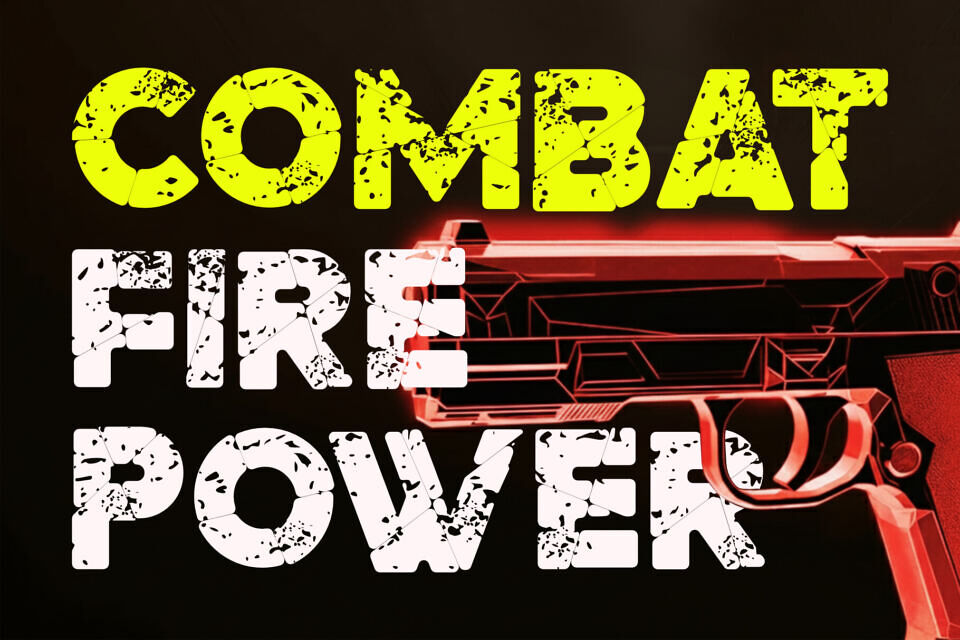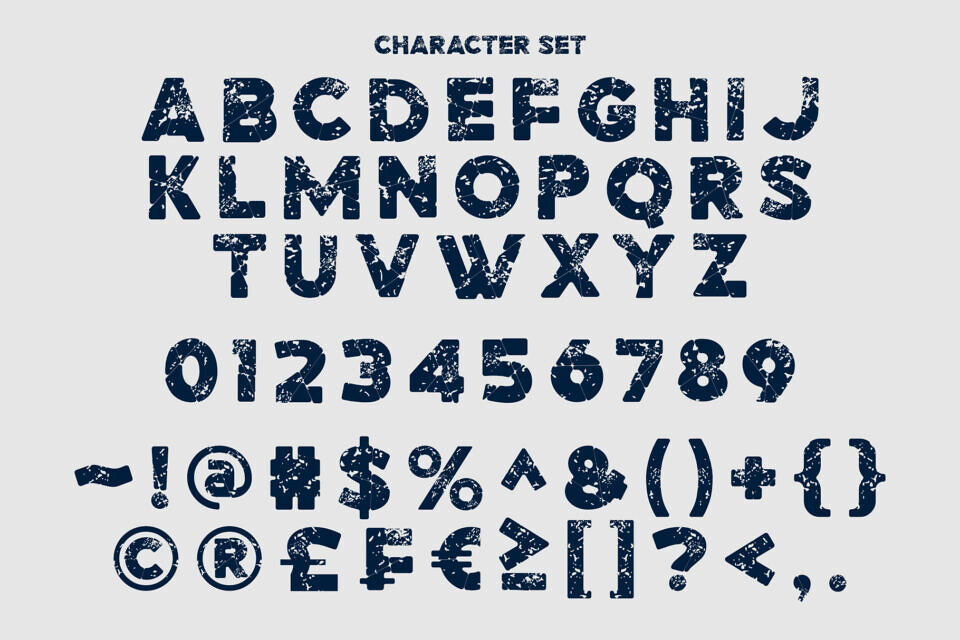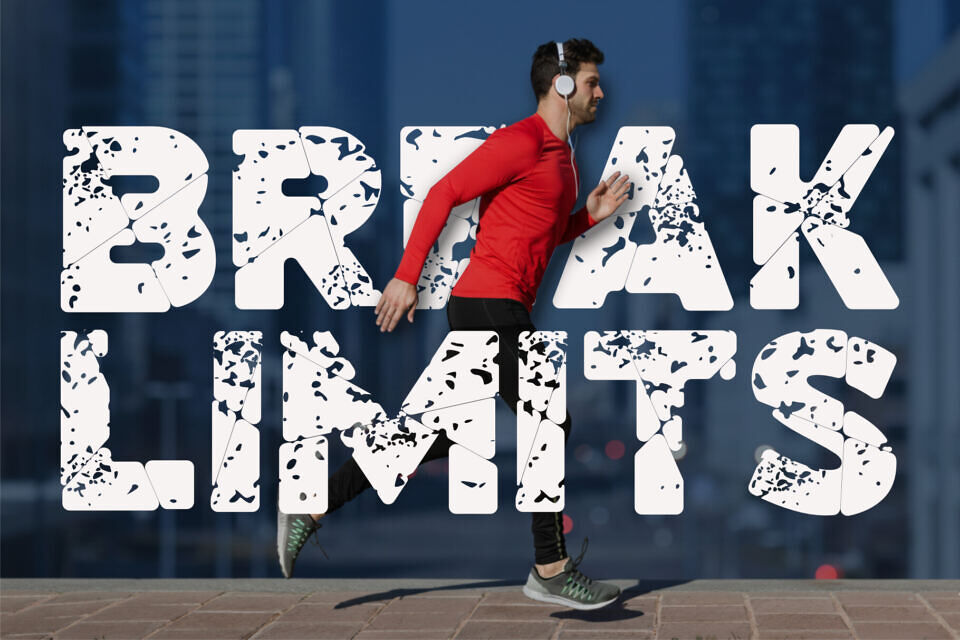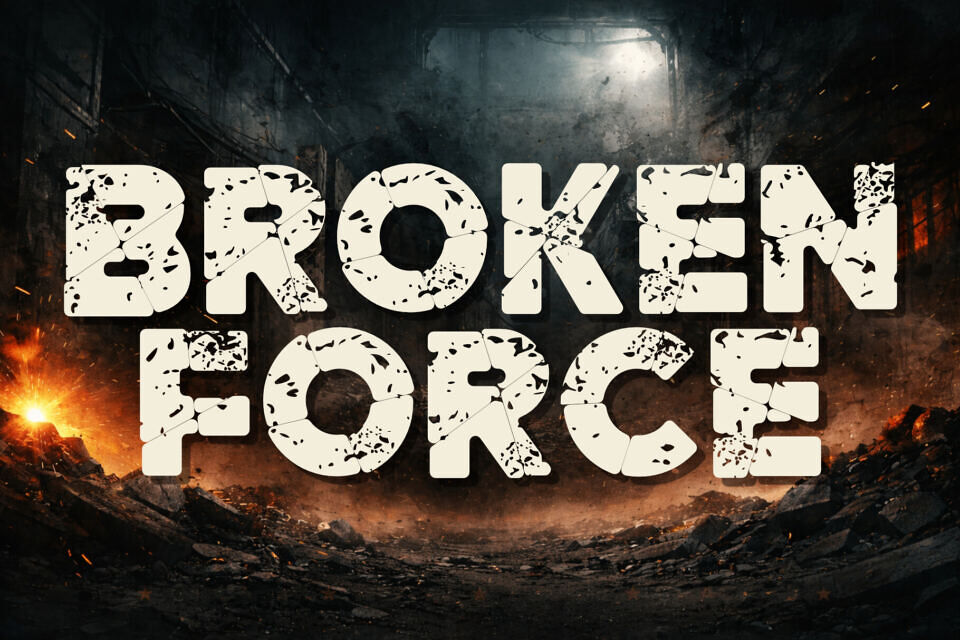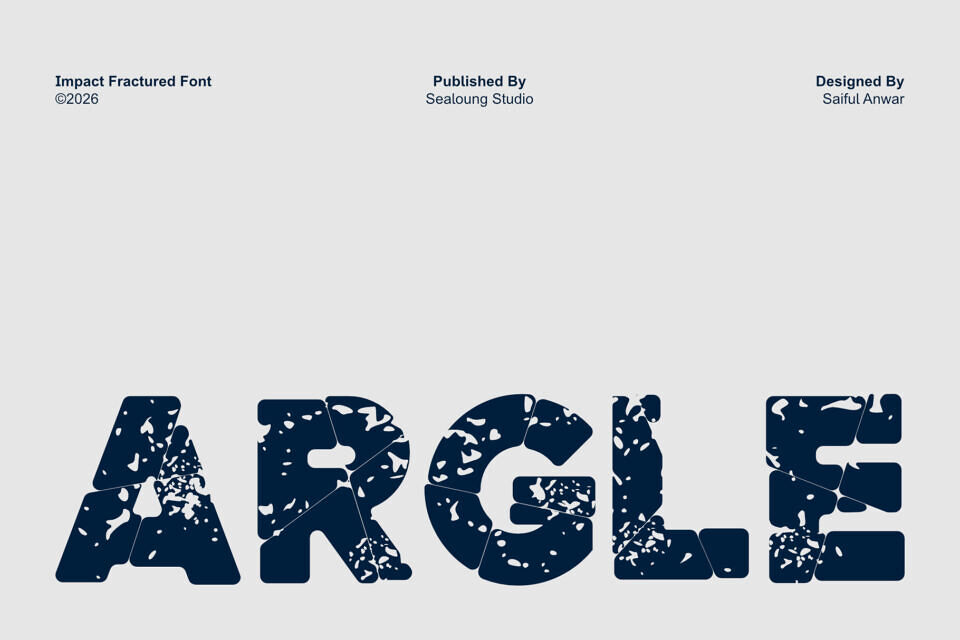
Argle Font
Argle Fracture is a bold distressed display font featuring cracked, broken textures that deliver a strong, rugged, and industrial character. Designed with thick letterforms and rough fractures, this font brings power and attitude to any design that needs impact and visual strength.
Perfect for posters, headlines, logos, album covers, apparel designs, game titles, and branding projects, Argle Fracture stands out with its bold presence and raw aesthetic. The distressed details give a worn, fractured look that works especially well for themes such as industrial, grunge, street, survival, action, and cinematic visuals.